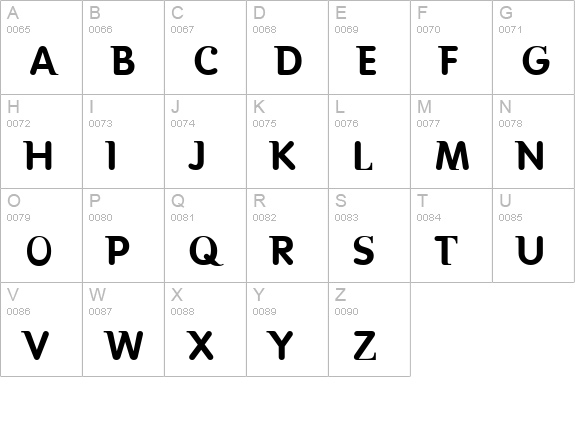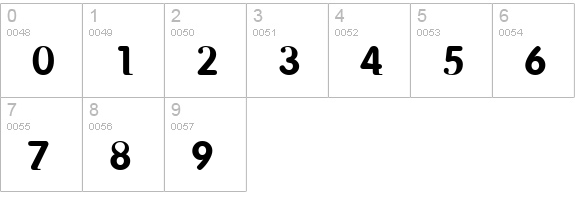
BirthRiot Font Details
BirthRiot font is a striking and bold typeface that exudes energy and creativity. With its edgy design and sharp angles, this font is perfect for making a statement in your designs. BirthRiot is a versatile font that can be used for a variety of projects, from posters to branding to social media graphics. The best part? BirthRiot font is completely free to download at FontsMarket.com. This means you can add this unique and eye-catching font to your collection without any cost. Don't miss out on the opportunity to enhance your designs with the dynamic and impactful BirthRiot font, available for free download now.